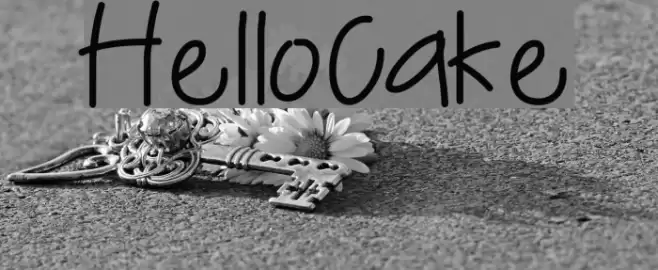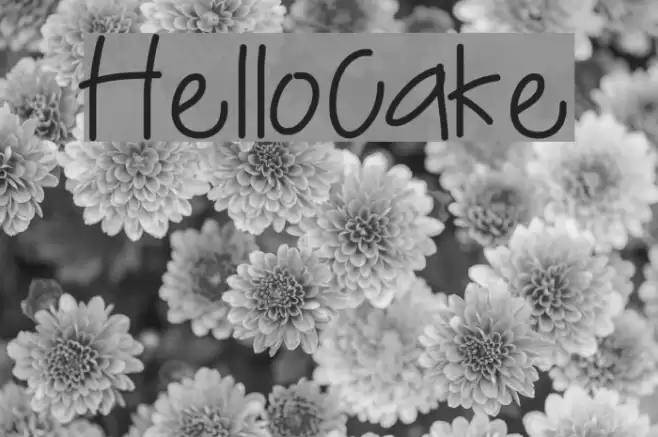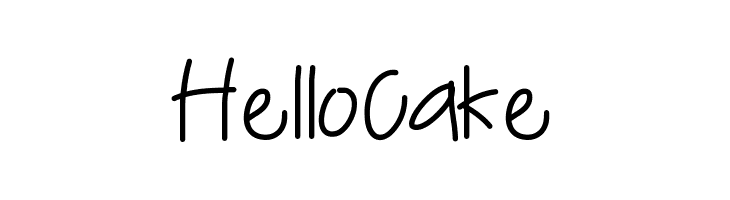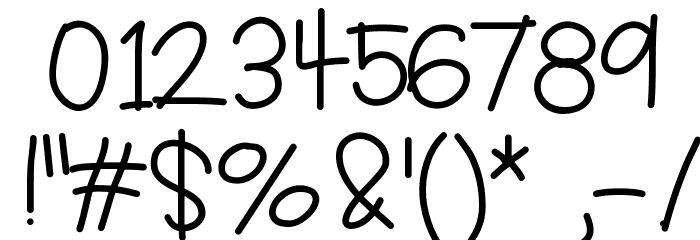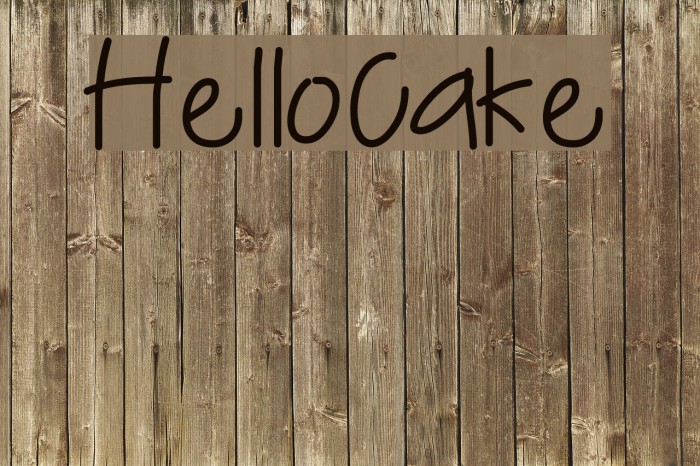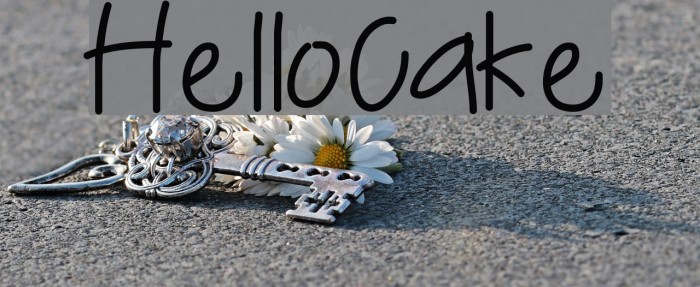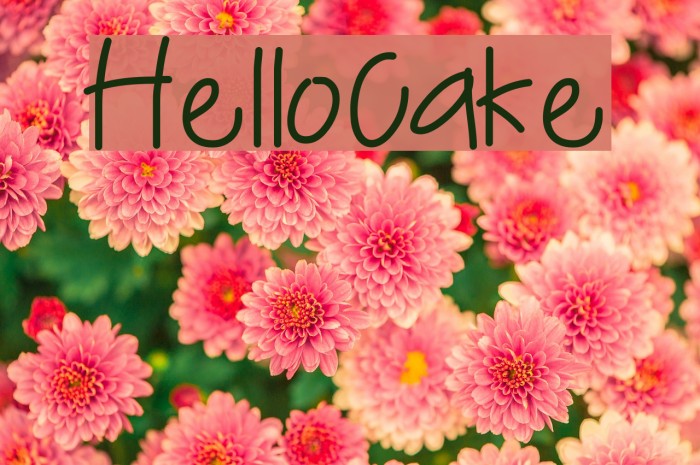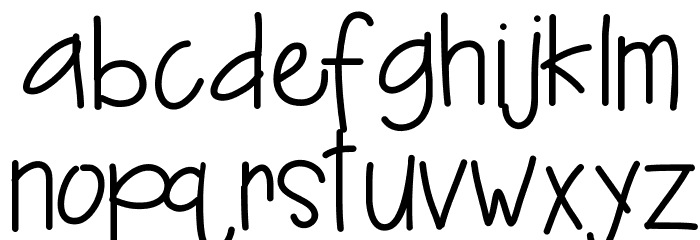
HelloCake Font
HelloCake Description
This font features a playful and casual handwritten style, characterized by its smooth, flowing lines and slightly irregular shapes. The letters have a consistent stroke width, giving it a uniform appearance while maintaining a sense of spontaneity. The uppercase letters are tall and slightly narrow, while the lowercase letters are rounded and open, enhancing readability. The numerals and special characters follow the same playful aesthetic, making this font suitable for informal and creative projects. Its overall look is friendly and approachable, perfect for adding a personal touch to designs.
A playful, casual handwritten font with smooth, flowing lines from Handwritten fonts.
- Proposed Projects: Ideal for greeting cards, children's books, casual invitations, and playful branding.
- Overall Style: Casual
- Use Case: Headlines, Informal text, Creative projects